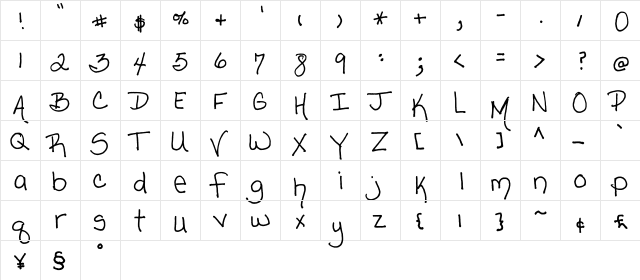
FG Beatrice Regular
Design Context for FG Beatrice Typeface
FG Beatrice is a composed and adaptable typeface that performs quietly and consistently across a wide range of design contexts.